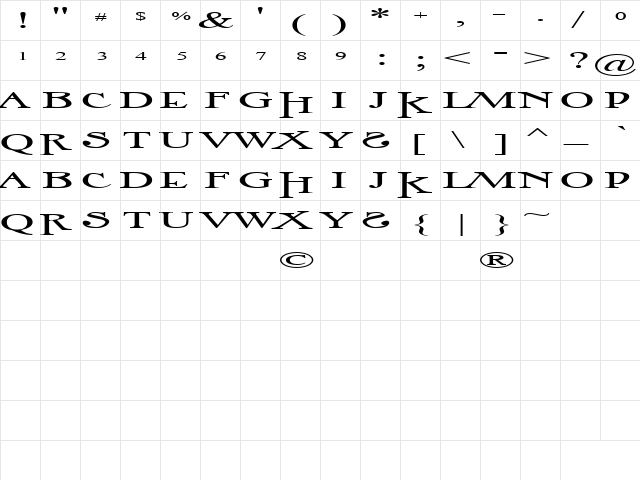
Image Times Regular
Design Context for Image Times Typeface
Image Times takes a measured approach to typography — its balanced proportions and neutral character make it a reliable workhorse for both digital and print work.